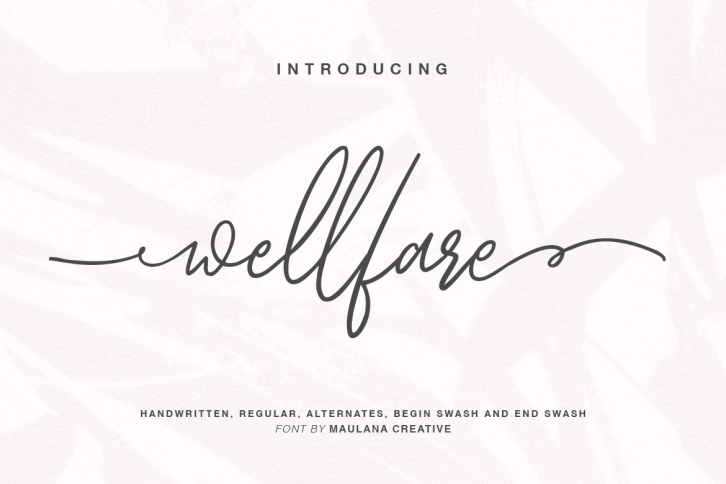
Wellfare is a trendy and unique font with an authentic style. It was designed by Maulana Creative and it's a great choice for creative people who need such a font. It was released on December 23, 2019 and the file size is 20.95 MB. Wellfare will add an organic vibe to any design idea!